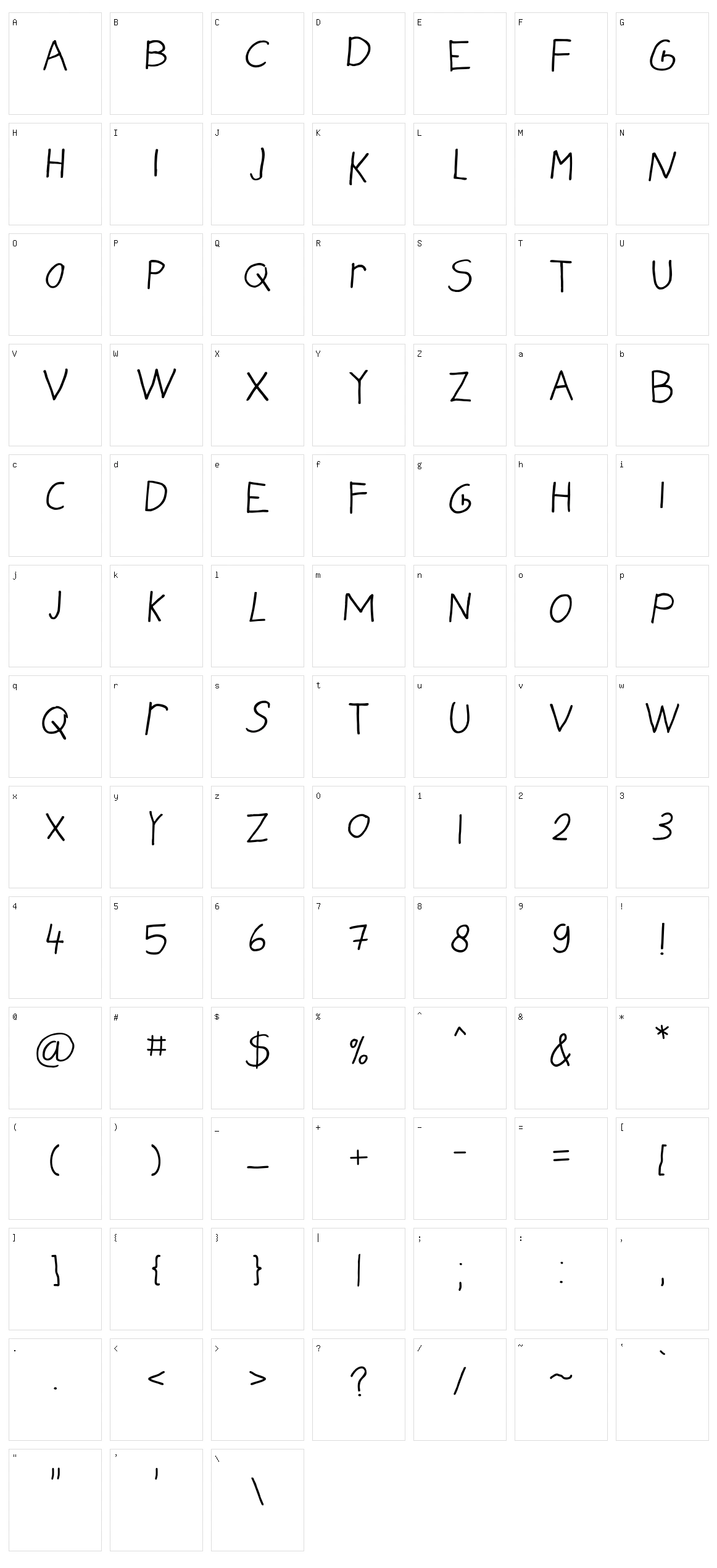
My name is Sam. I am seven years old and I like to make fonts.
My father does all the âtechnical stuffâ, since I donât know anything about kerning and all that.